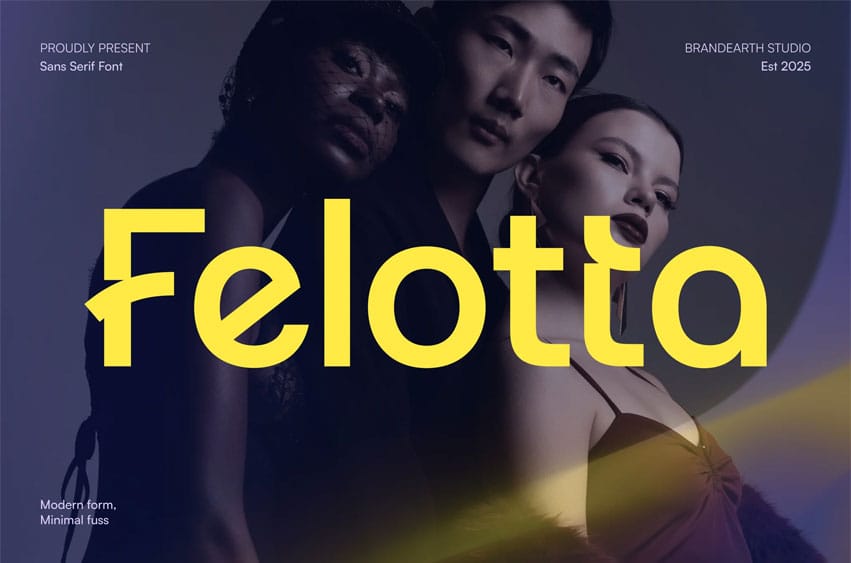
Felotta Font is a geometric sans-serif typeface. The font’s structure provides excellent readability across various sizes, making it suitable for both print and digital media. Designed with clean lines and modern proportions, Felotta is ideal for use in branding systems, editorial layouts, product packaging, web interfaces, and minimalist typographic compositions. Its consistent line weight and contemporary construction support modern design needs while maintaining clarity and functionality.
Relevance and Use Cases Astaria is perfect for branding, editorial headlines, digital ads, logo design, minimal web, packaging, bold display, stylish posters, modern typography, geometric layouts, social media graphics, beauty brands, clean marketing, print design, product tags, lookbooks, trend campaigns, portfolio covers, luxury identity, startup visuals.